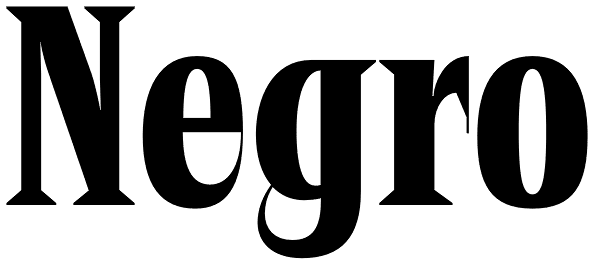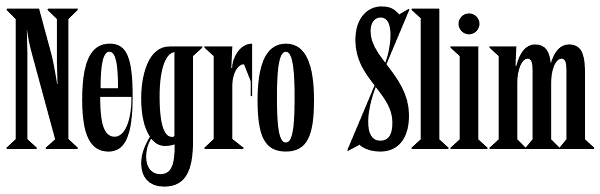
Negro
Dark, spicy & distinctive display typefaces from the nineteenth century I had in mind when creating this font family. Extreme contrasts and sharp endings may remotely remind some blackletters, especially in narrowed styles. The range of interpolated...